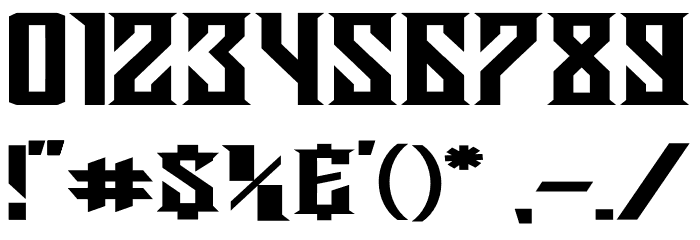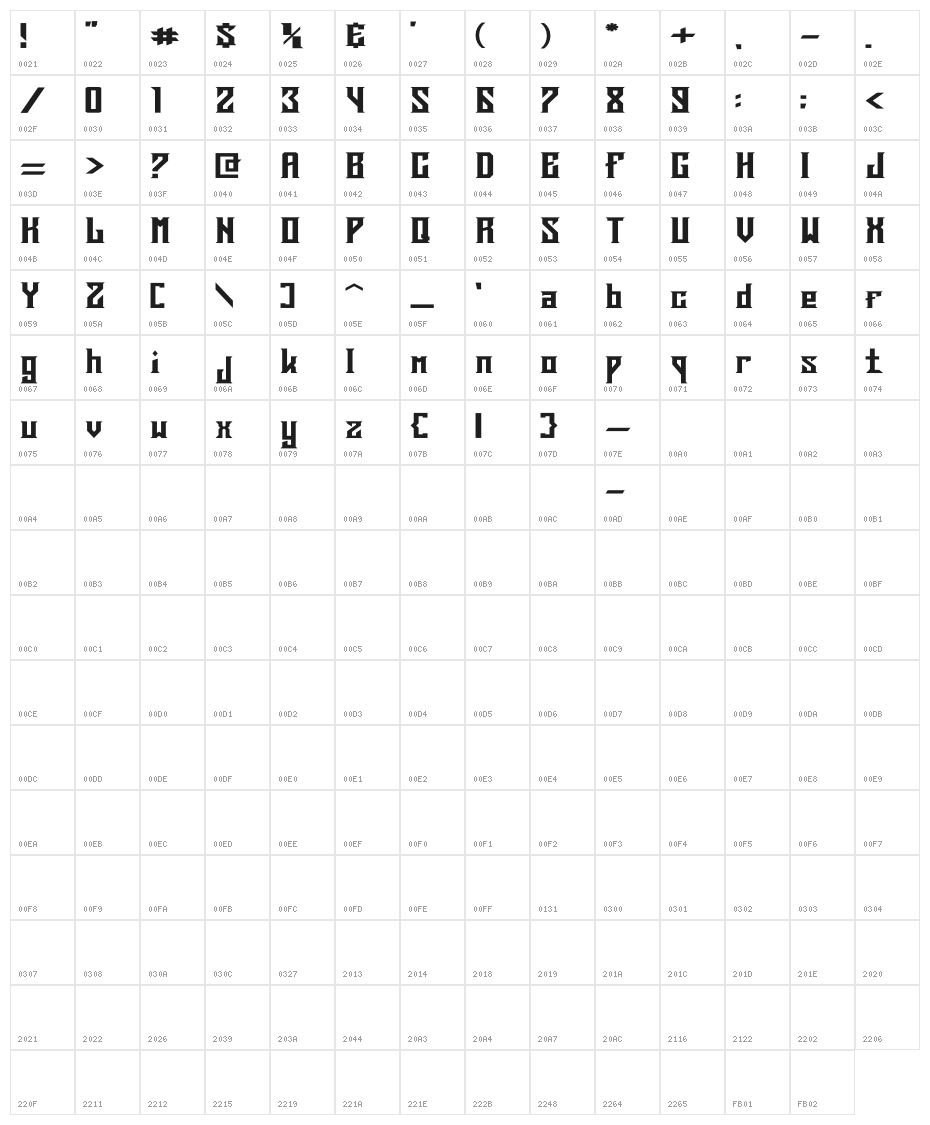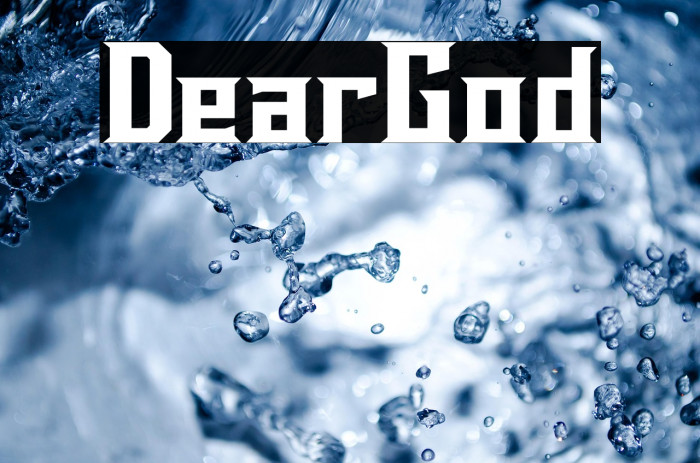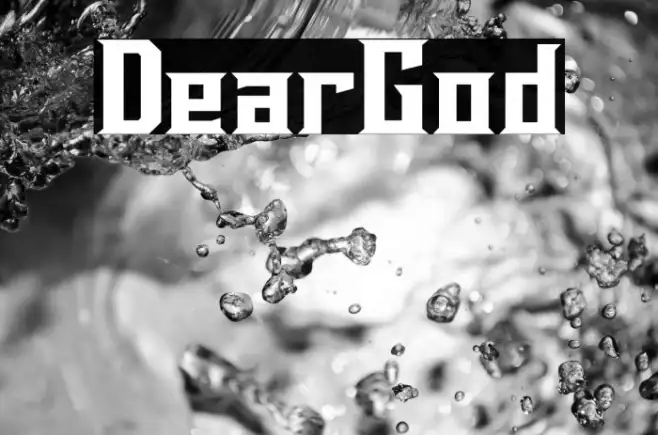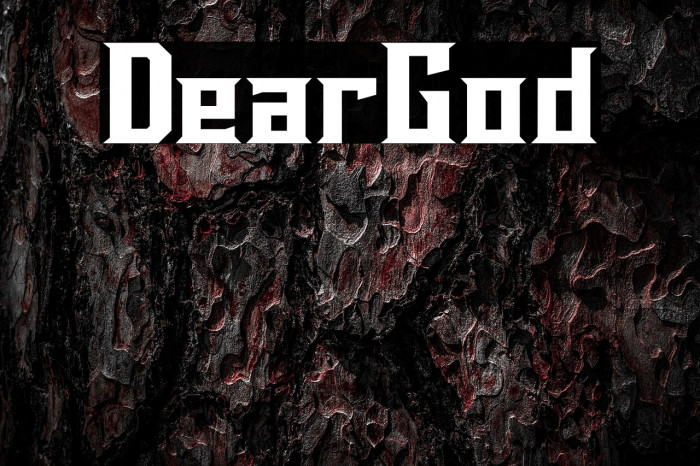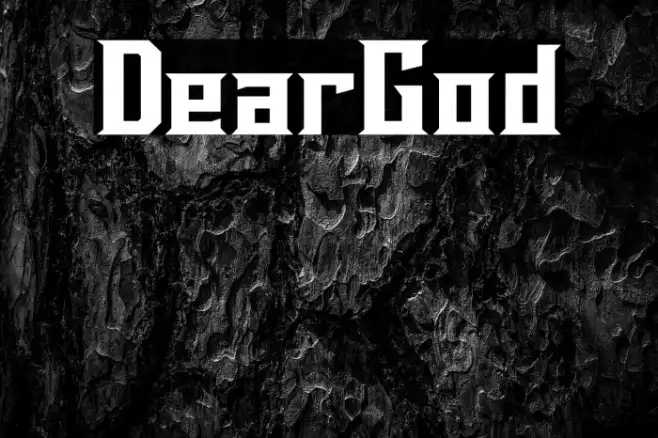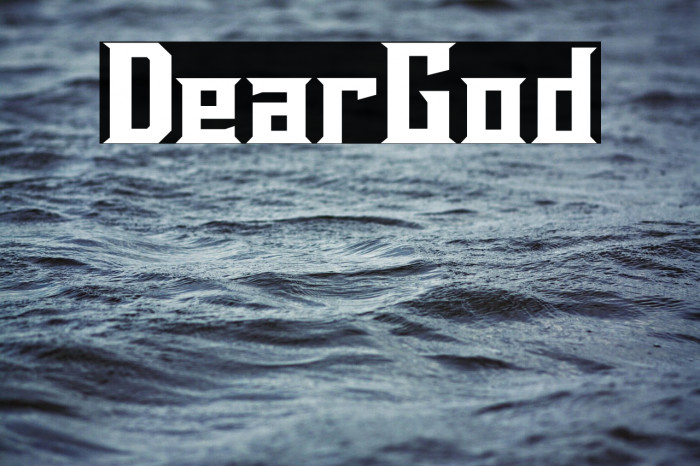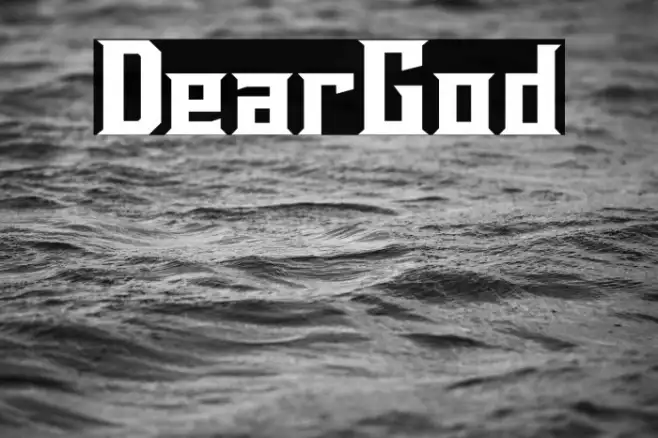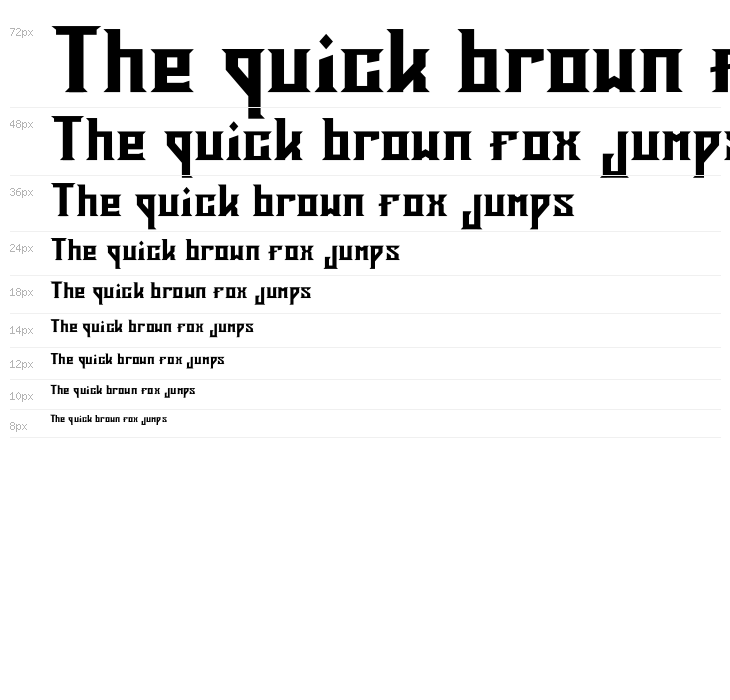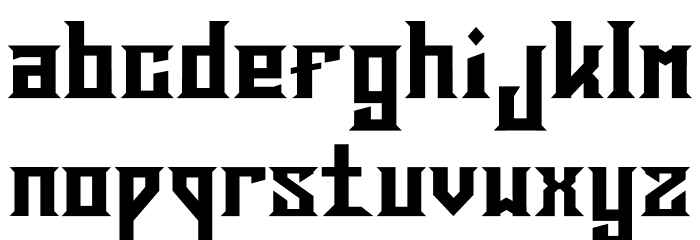
DearGod Font
DearGod Description
This font features a bold and striking design with a strong geometric influence. The characters are crafted with sharp angles and a blocky structure, giving it a modern and edgy appearance. The uppercase letters are particularly prominent, with a uniform height and width that create a cohesive look. The lowercase letters maintain the same angular style, offering a unique twist on traditional letterforms. Numbers and special characters are equally bold, ensuring consistency across all elements. This font's distinct style makes it ideal for attention-grabbing designs.